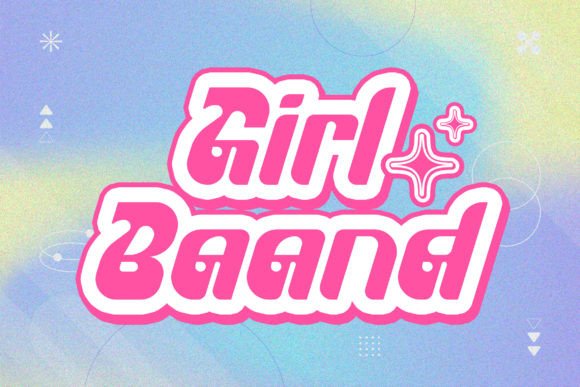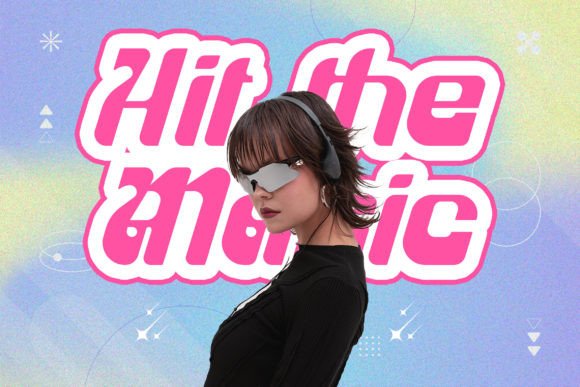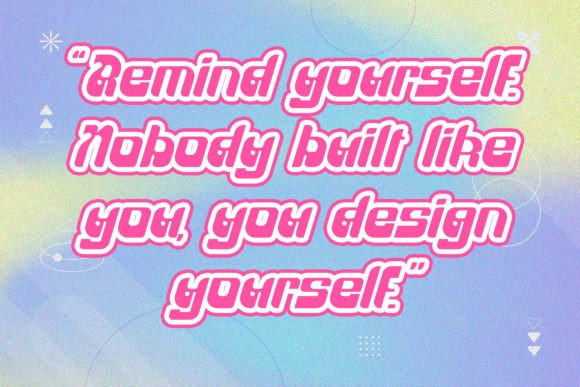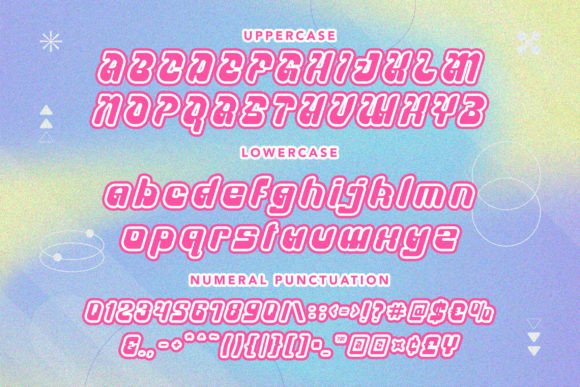
Gencity Font: The Cute and Fun Typeface Inspired by K-POP
In the world of design, fonts play a crucial role in making your creative projects stand out. With the rise of K-POP, a new wave of inspiration has taken over the design community, and Gencity Font is here to take center stage. This adorable and fun typeface is inspired by the current K-POP trend, making it a versatile and must-have font for designers and crafters alike.
What is Gencity Font?
Gencity Font, also known as Gencity Typeface, is a modern and playful font that embodies the spirit of K-POP. Its unique design elements and cute aesthetic make it perfect for a wide range of creative projects, from social media graphics and posters to merchandise and branding materials. The font’s versatility allows it to elevate any design to the highest level, making it a valuable addition to your font collection.
The Inspiration Behind Gencity Font
The creator of Gencity Font drew inspiration from the vibrant and energetic world of K-POP. The font’s design is influenced by the colorful and playful visuals often associated with K-POP music videos, album covers, and merchandise. The result is a font that exudes a sense of fun, youthfulness, and playfulness, making it perfect for designs that require a fresh and modern look.
Characteristics of Gencity Font
Gencity Font boasts several characteristics that make it a standout typeface:
- Cute and playful design: Gencity Font features rounded edges, soft curves, and a whimsical feel that makes it perfect for designs that require a touch of personality.
- K-POP inspired: The font’s design elements are inspired by the colorful and energetic visuals of K-POP, making it a great choice for fans of the genre.
- Versatile: Gencity Font can be used for a wide range of creative projects, from digital designs to print materials.
- Easy to read: Despite its playful design, Gencity Font remains easy to read, making it perfect for body text and headlines.
Uses of Gencity Font
Gencity Font is an incredibly versatile typeface that can be used for various creative projects, including:
- Social media graphics: Add a touch of personality to your social media posts and stories with Gencity Font.
- Posters and flyers: Create eye-catching posters and flyers with Gencity Font’s playful design.
- Merchandise: Use Gencity Font to create fun and colorful merchandise, such as t-shirts, stickers, and tote bags.
- Branding materials: Incorporate Gencity Font into your brand’s visual identity for a fresh and modern look.
Gencity Font is a must-have typeface for designers and crafters looking to add a touch of K-POP flair to their creative projects. Its cute and playful design, versatility, and ease of use make it an excellent choice for a wide range of applications. Whether you’re a seasoned designer or a crafty DIY enthusiast, Gencity Font is sure to elevate your designs to the highest level. So why wait? Add Gencity Font to your favorite creative ideas and see the amazing results for yourself!